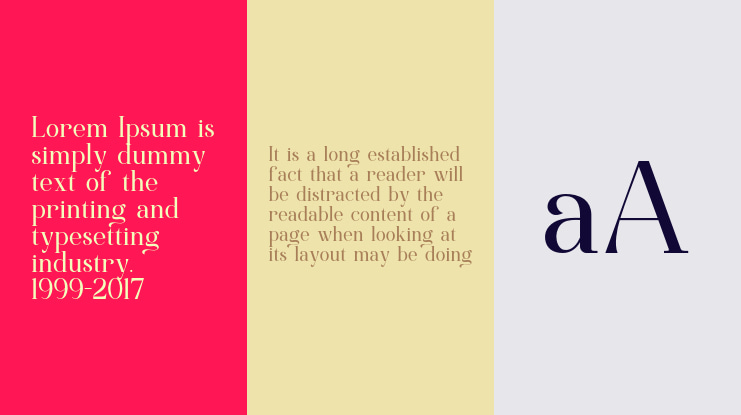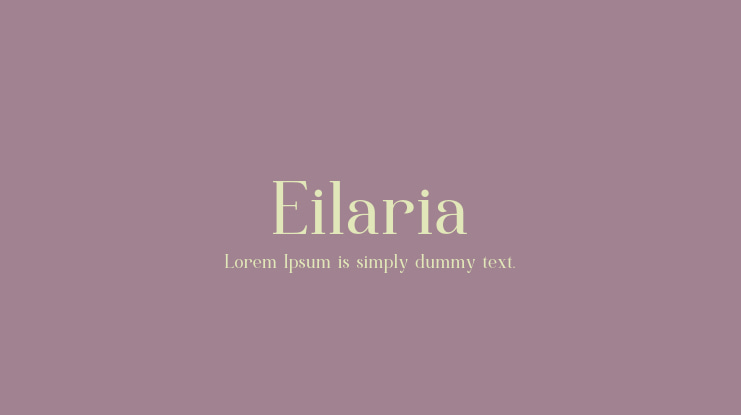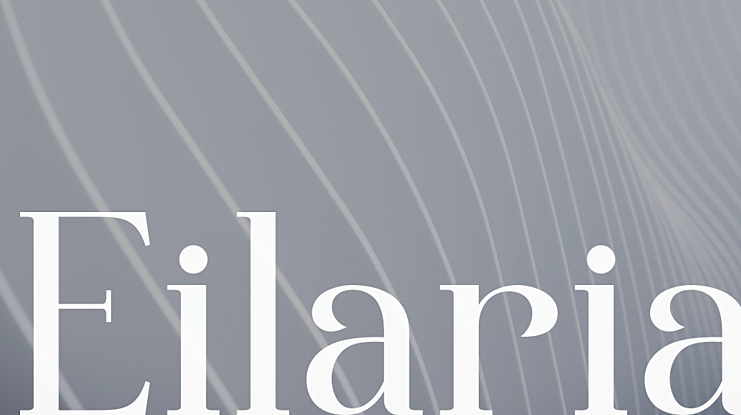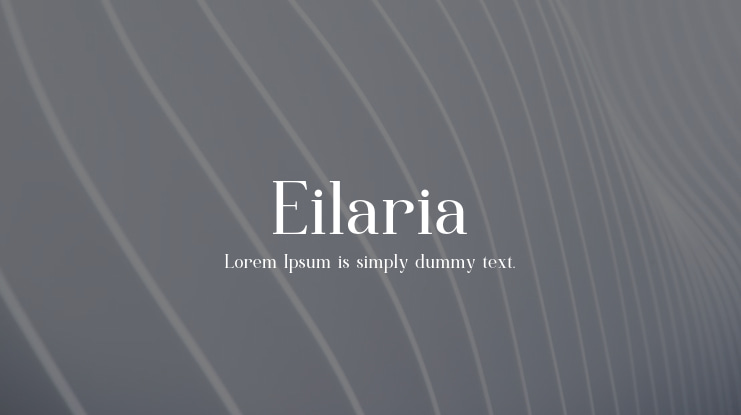
Eilaria Font
Eilaria is a classy duo font that includes modern serifs and scripts, which are perfect for using together in your designs. Can be used for titles, logos, brands, magazines, product packaging and invitations. Its elegant, stylish, classy, ​​graceful and modern touch with clean lines and smooth curves gives an extra touch of class to any project. Making this font the perfect partner for any project.